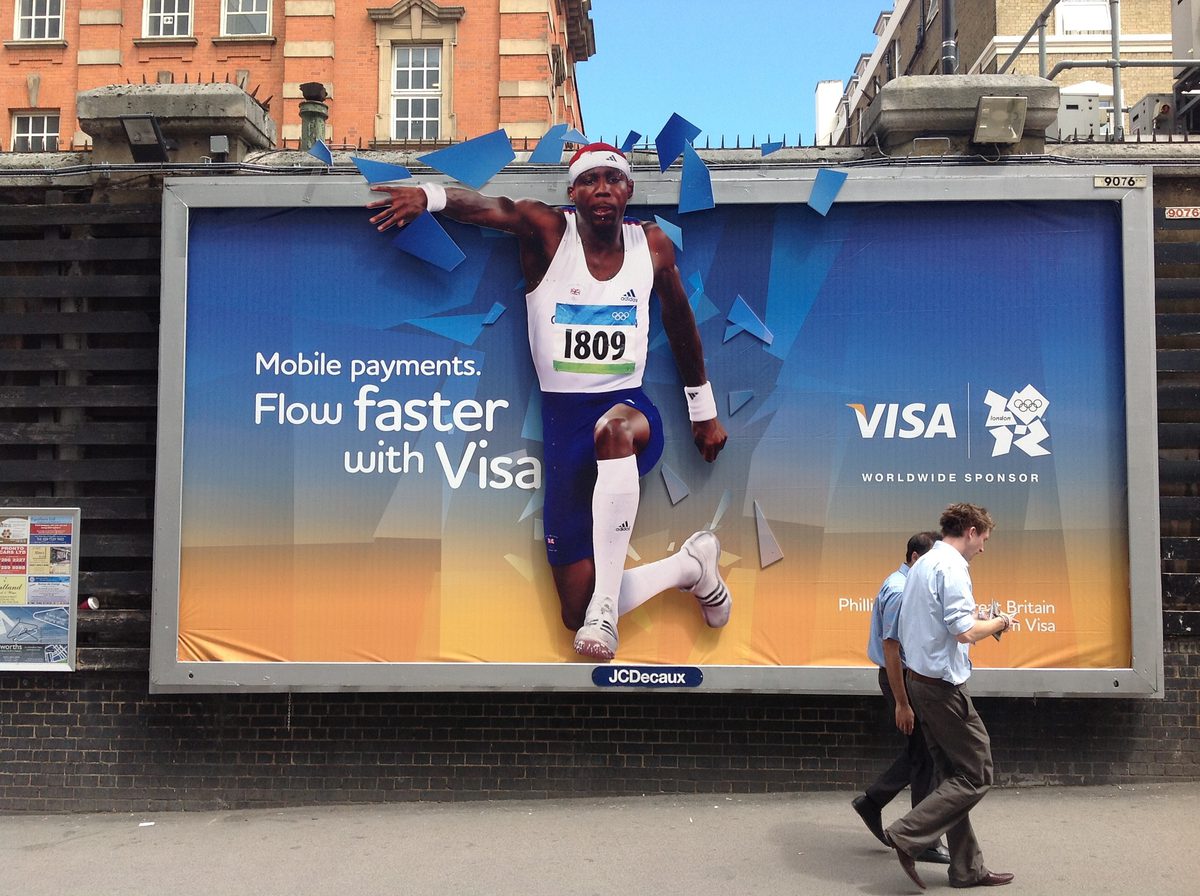
Houschka Rounded
Houschka Rounded is the companion font family to Houschka Pro and features even softer curves and terminals than its predecessor without losing any of its typographic impact.
Houschka Rounded may be a softer & cuter sans serif than her big sister but she's equally versatile, featuring CE, Baltic, Turkish & Cyrillic language support plus small caps, stylistic sets, contextual alternates, ligatures and 4 sets of numerals.
The Houschka Rounded fonts made a huge splash at the London Olympic Games as the centrepiece of Visa’s ‘Life Flows Better’ advertising campaign.
You really have no reason to continue using that tired out version of VAG when Houschka Rounded offers a more contemporary typographic alternative.
Houschka Rounded is great when paired with Rollerscript
Houschka Rounded contains an extended Latin character set with additional Cyrillic support.
OpenType Features
• • Stylistic Alternates
• • Style Sets SS01, SS02, SS03
• • Small Caps & Caps to Small Caps
• • Standard & Discretionary Ligatures
• • Proportional & Proportional O.S. Figures
• • Tabular & Tabular O.S. Figures
• • Fractions
• • Superiors
• • Ordinals